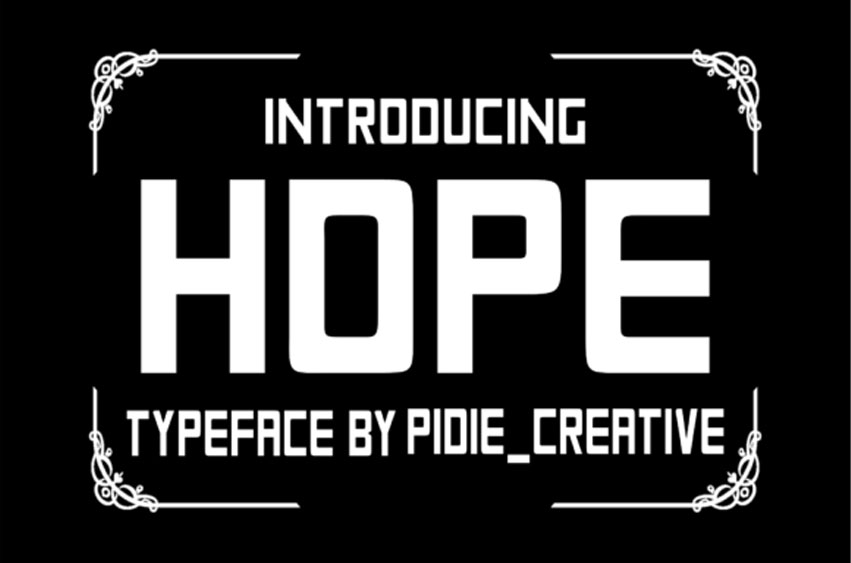
Hope Font
Hope Font is a bold and neat sans serif font.
It can easily be matched to an incredibly large set of projects, so add it to your creative ideas and notice how it makes them stand out!